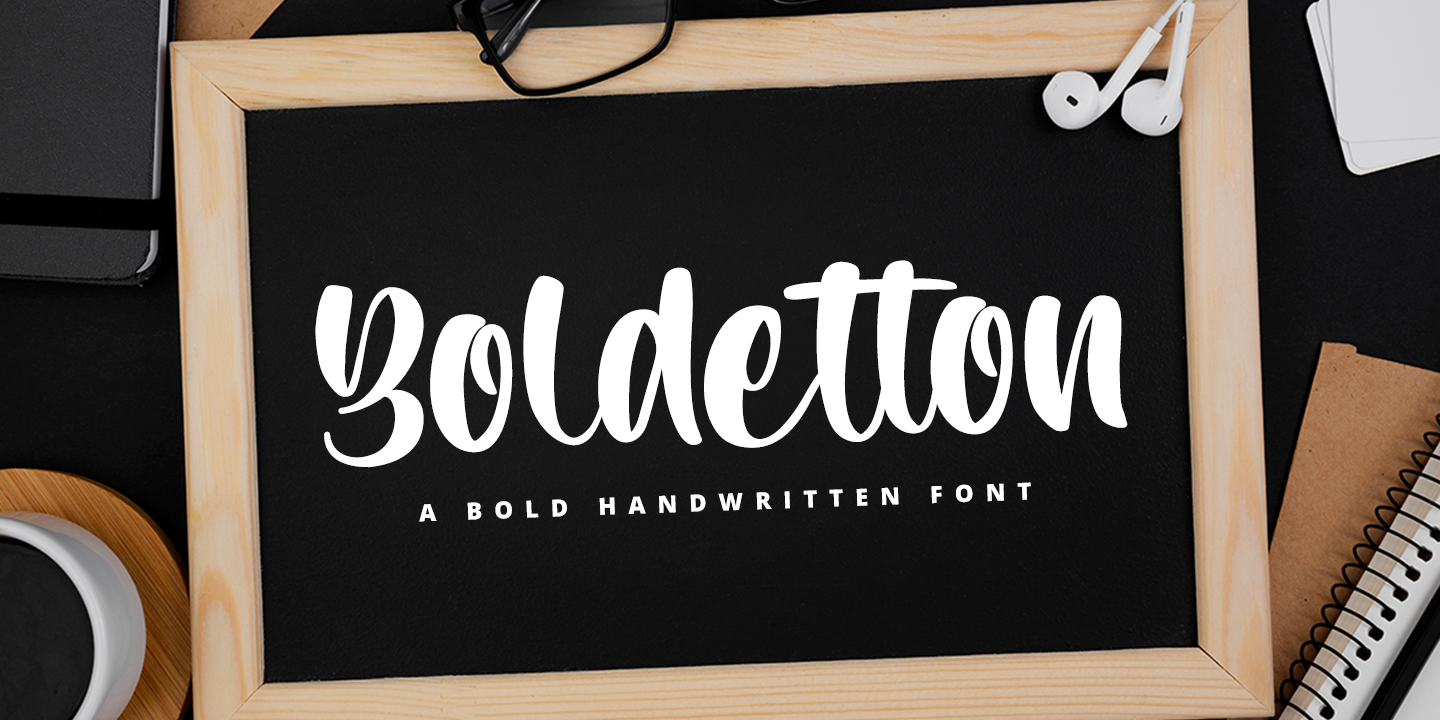
The Boldetton Font is an excellent choice for designs that demand a strong, impactful, and often playful or cartoonish aesthetic, perfect for making a cheerful statement. Imagine it gracing the covers of vibrant children's books, adding a fun and energetic feel to toy packaging, or bringing a distinctive, friendly vibe to casual apparel designs. It's also perfectly suited for captivating event posters for family-friendly gatherings, unique branding for whimsical businesses, and any project where you want to convey joy, enthusiasm, and an approachable personality. With its often thick, rounded, or bouncy forms, the Boldetton Font is ideal for projects that aim for visual prominence and a memorable, lighthearted impression.
What makes the Boldetton Font truly exciting is its ability to instantly project a sense of fun and approachability. It’s designed to grab attention with its bold presence, making your message resonate with a positive and energetic tone. This font often features unique letterforms with exaggerated curves or a hand-drawn quality that sets it apart from more conventional typefaces. It's perfect for establishing a brand identity that feels playful, imaginative, and genuinely unique, ensuring your visual communication is not just seen, but truly felt. The Boldetton Font Free Download offers a fantastic opportunity to infuse your projects with this distinctive character.
The Boldetton Font family is typically designed to offer versatility while maintaining its signature bold and friendly style. While specific family members can vary, you can often expect to find:
Boldetton Regular
Boldetton Bold (for even greater emphasis, if not already the primary bold style)
Boldetton Outline (for a unique display effect, adding depth)
Boldetton Shadow (for a playful three-dimensional appearance)
Boldetton Italic (for a slanted, dynamic look)
These variations provide flexibility for different design applications, allowing you to create engaging visual hierarchies and maintain a consistent, powerful aesthetic across all your projects.